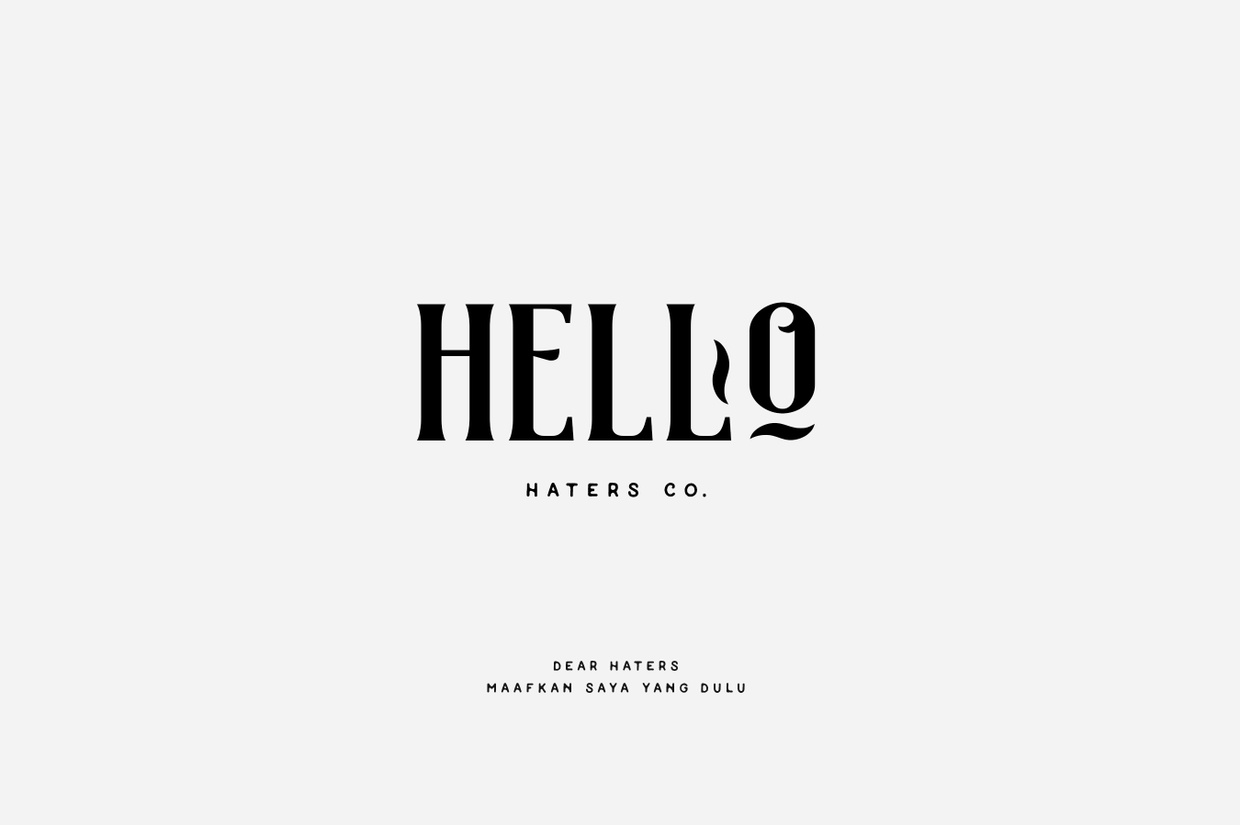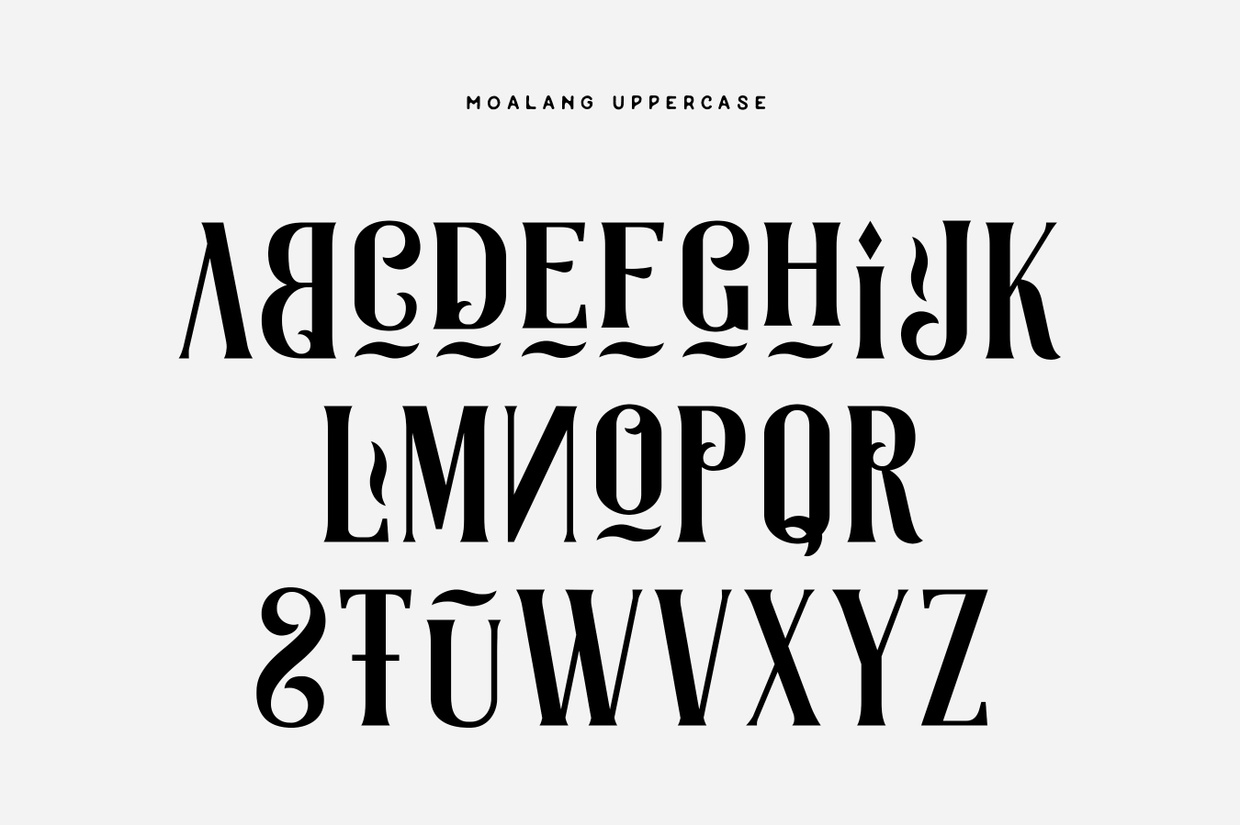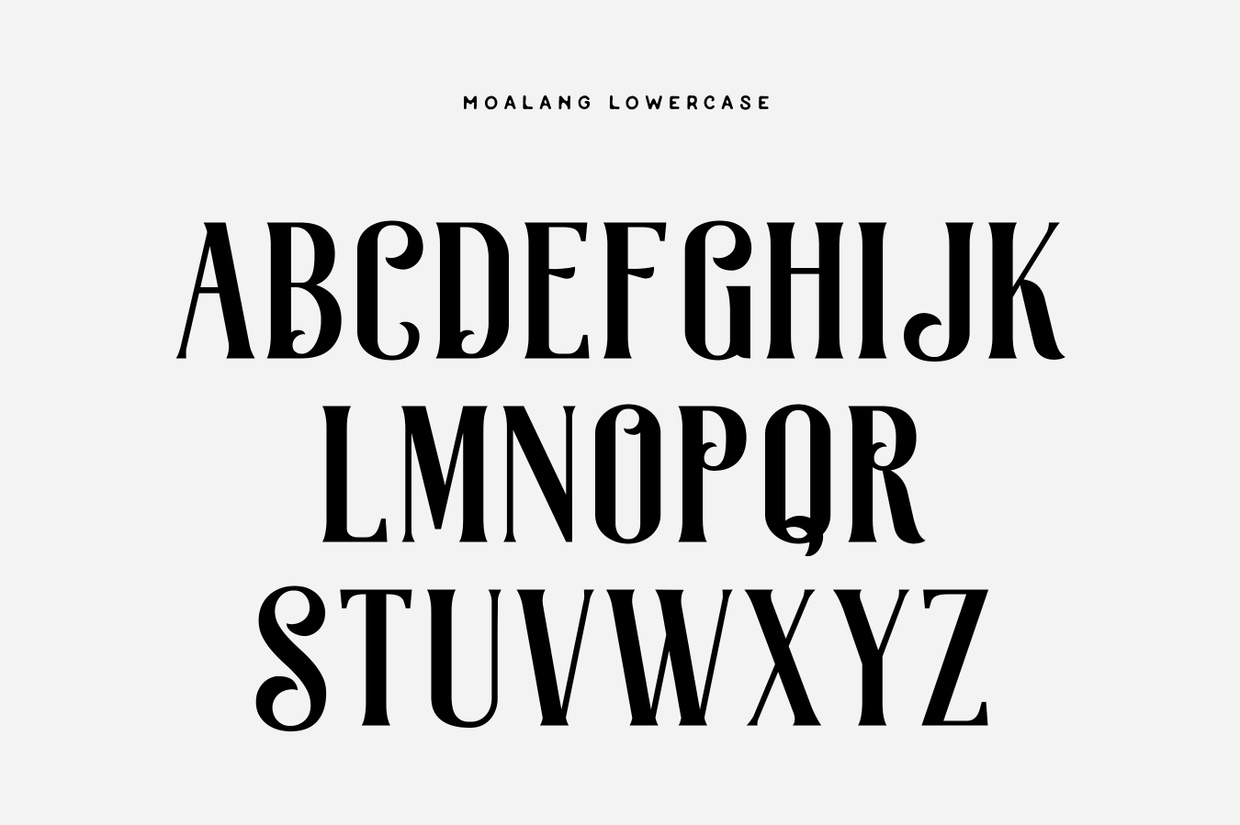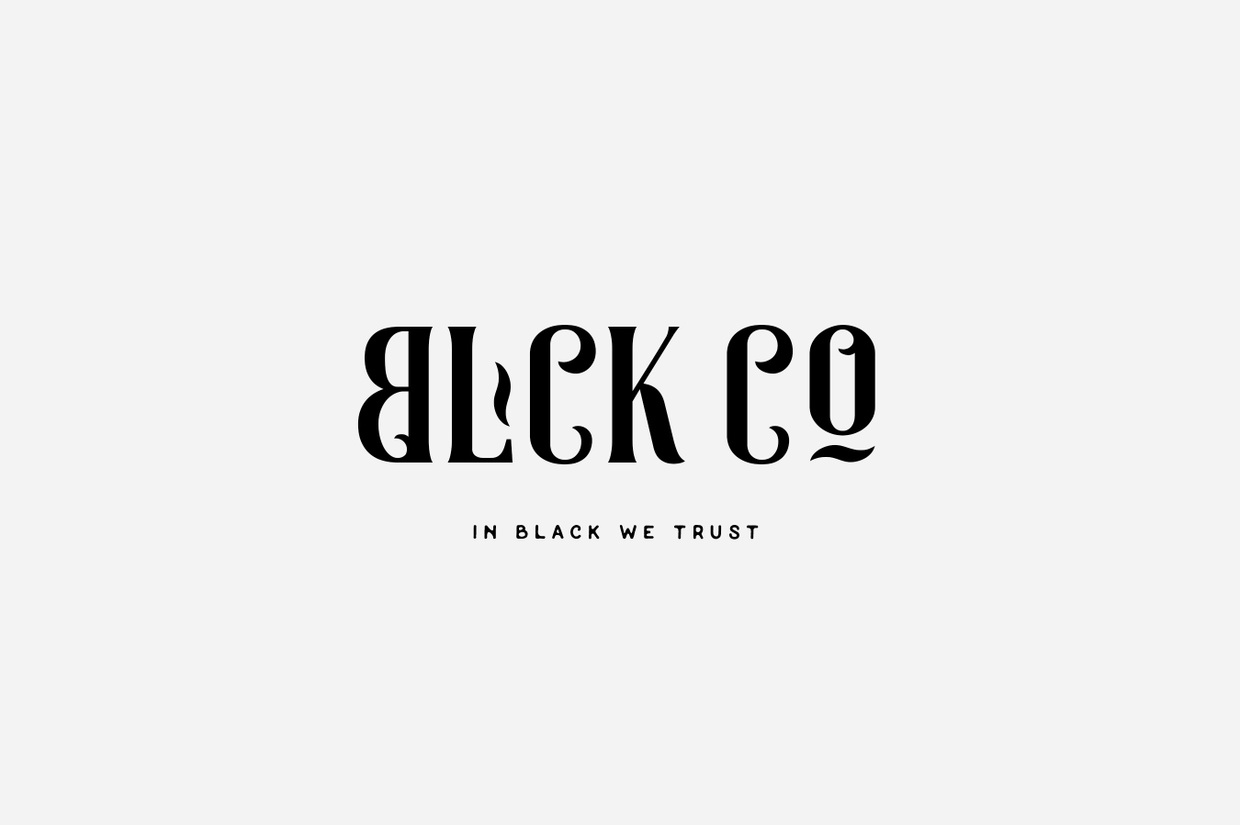
Moalang Font
Moalang Free Font
Moalang is vintage display font with unique glyph combination to create fresh look on your project. This font come with tons of cool Alternates Characters and OpenType Features, there’s so many possibilities combination.